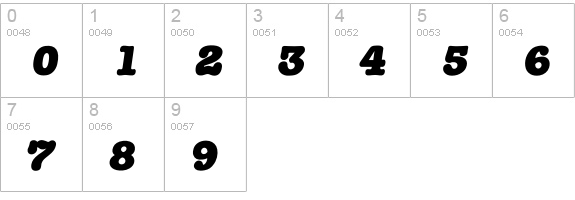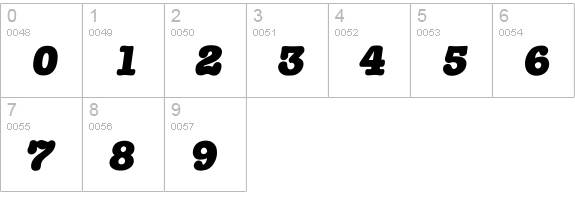
Itypewriter Heavy is a heavy, high-impact variant in the Itypewriter typeface family \xE2\x80\x94 well suited to high-impact headlines, posters, and display advertising.
Introducing Itypewriter Heavy font, a bold and impactful typeface that exudes power and authority. With its thick and sturdy letterforms, this font is perfect for creating eye-catching headlines, impactful logos, and attention-grabbing designs. The Itypewriter Heavy font commands attention with its strong presence and striking appearance. Its carefully crafted design ensures clarity and legibility, making it suitable for a wide range of applications, from print materials to digital designs. This font's bold strokes and well-defined curves give it a timeless and classic appeal. It embodies a sense of confidence and strength, making it ideal for projects that require a strong and commanding visual presence. But what makes Itypewriter Heavy font even more appealing is that it is freely available to download at FontsMarket.com. Yes, you read that right! You can enjoy the power and impact of this font without any cost. It is the perfect opportunity to enhance your design projects with a high-quality typeface that doesn't break the bank. Whether you're a professional designer or a hobbyist, Itypewriter Heavy font is a valuable addition to your font library. Its versatility and striking aesthetic make it a go-to choice for various design projects, from branding to advertising, packaging to editorial layouts, and more. Don't miss out on this opportunity to add a touch of boldness and authority to your designs. Download Itypewriter Heavy font for free at FontsMarket.com and let your creativity soar with this exceptional typeface.